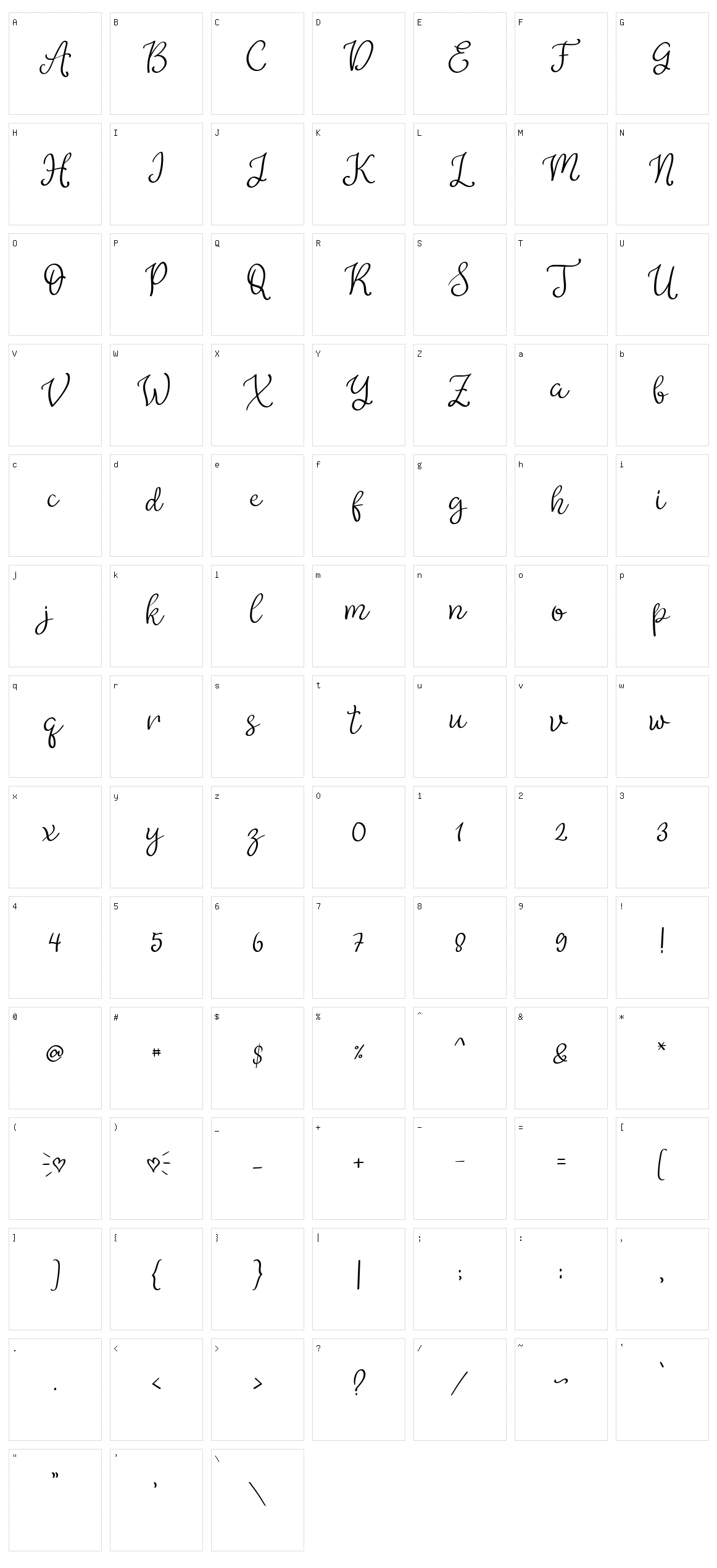
The free font Star Love is carefully designed by AminMario, showcasing a thoughtful balance of creativity and usability and falls under the Script font style. When you download the ZIP file, it contains only 43.49 KB of font files, making it lightweight and quick to download. Please review the license details below to understand permitted usage and distribution rights. If license information is not available, we recommend using this font for personal projects only or contacting the author directly for commercial usage permissions.